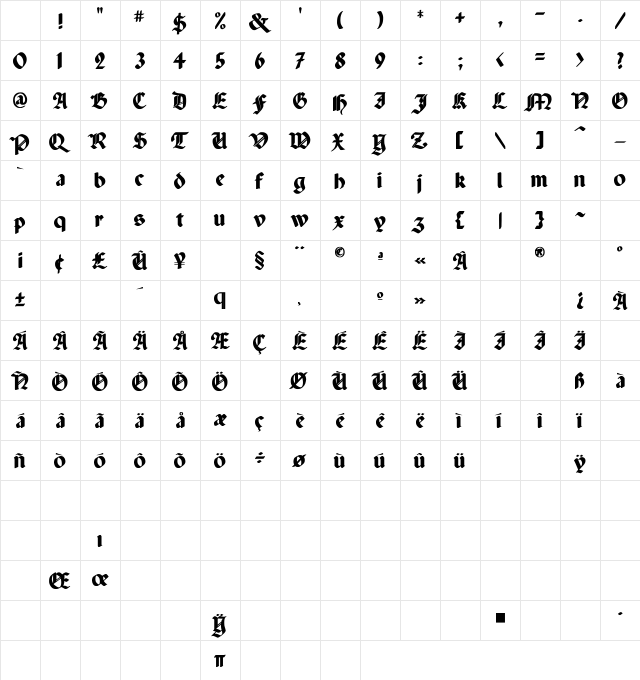
Paganini Th is a composed and adaptable typeface that performs quietly and consistently across a wide range of design contexts. Its bold stroke weight gives it real presence on the page.